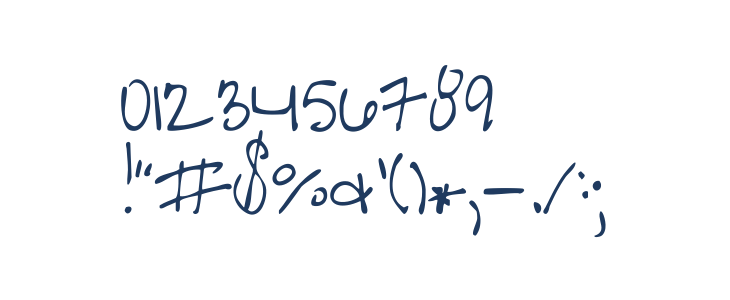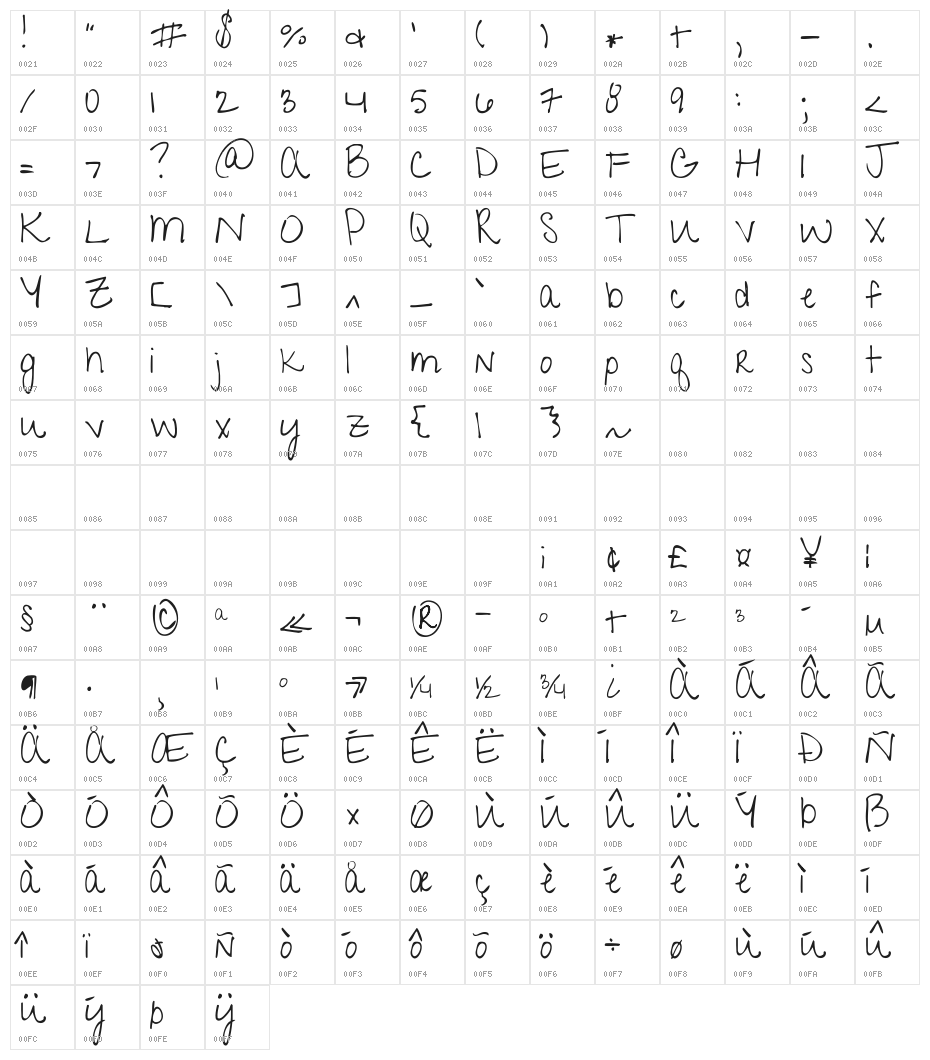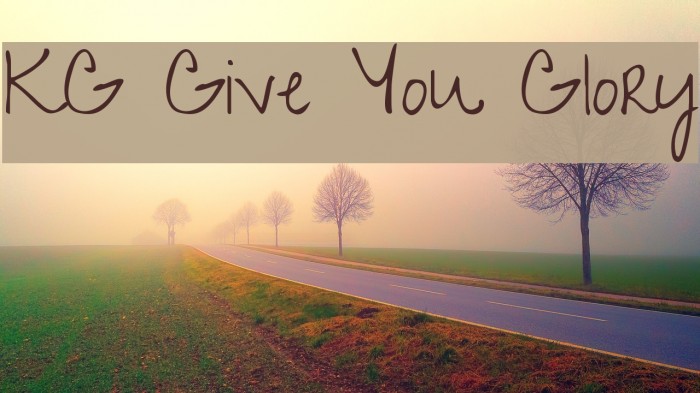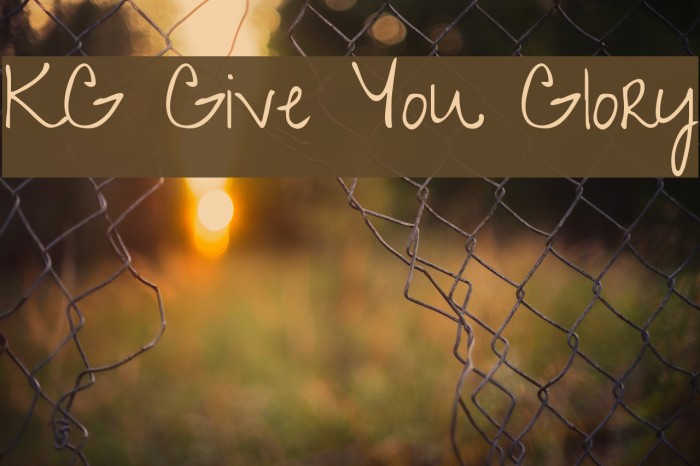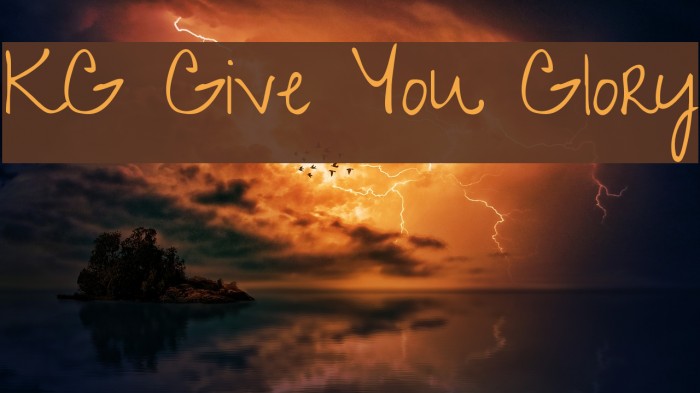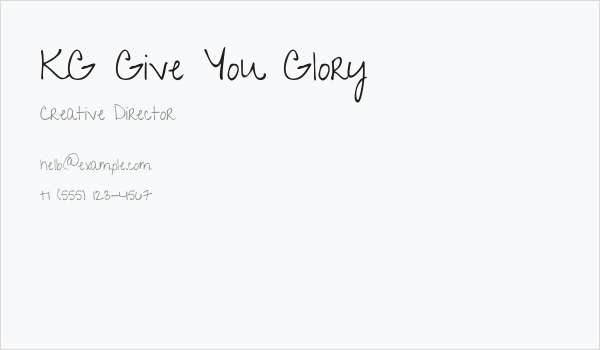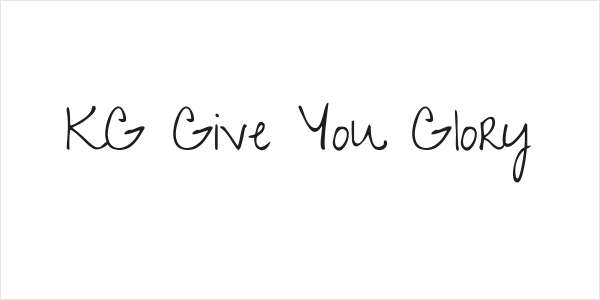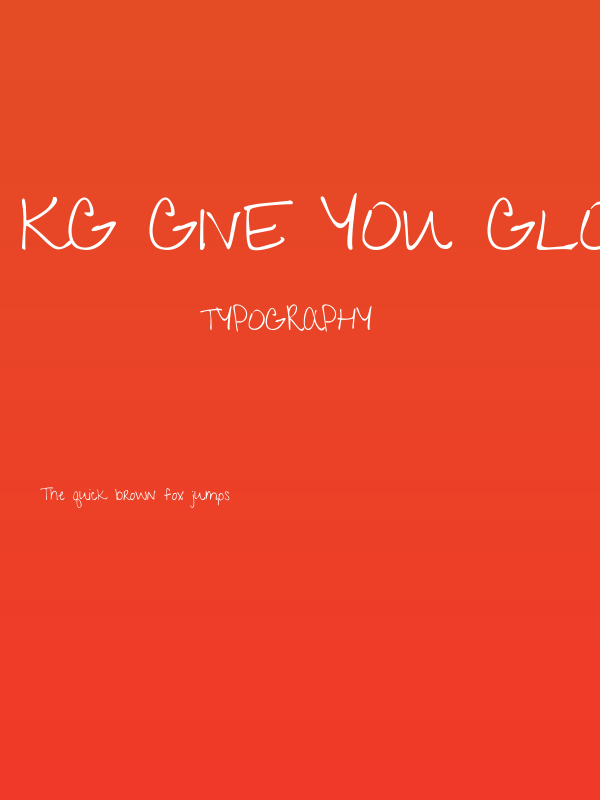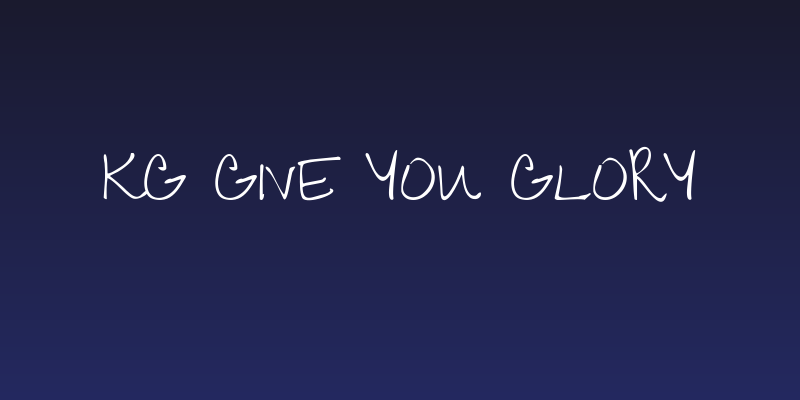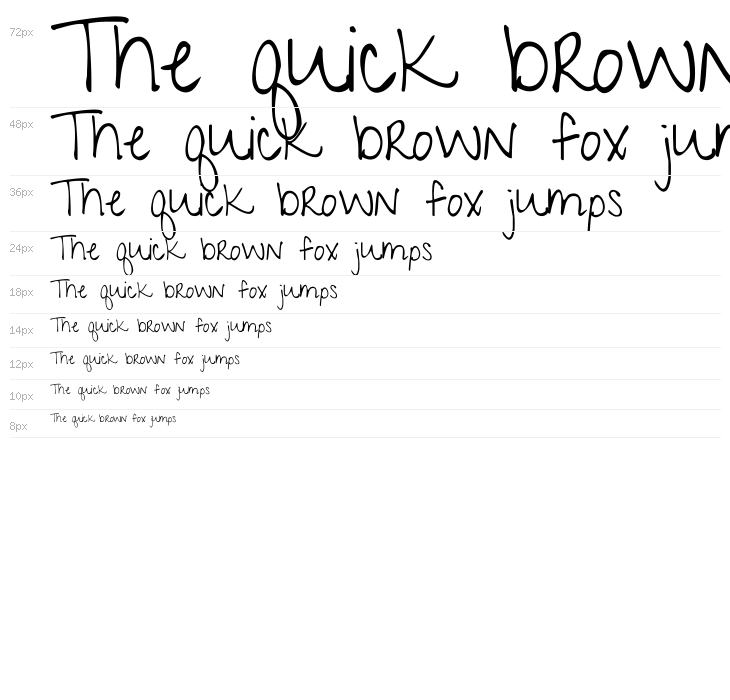
KG Give You Glory Font
KG Give You Glory Description
This font exudes a playful and casual handwritten style, characterized by its fluid and slightly irregular strokes. The letters are crafted with a natural flow, giving the impression of being written with a felt-tip pen or marker. The uppercase and lowercase letters maintain a consistent style, with rounded edges and varying stroke widths that add to its informal charm. The numerals and special characters follow the same aesthetic, ensuring a cohesive look across all glyphs. This font is perfect for projects that require a personal touch, such as greeting cards, invitations, or playful branding.
| Use Case | Headlines, Logos, Personal projects |
| Proposed Projects | Ideal for greeting cards, invitations, playful branding, and personal projects. |